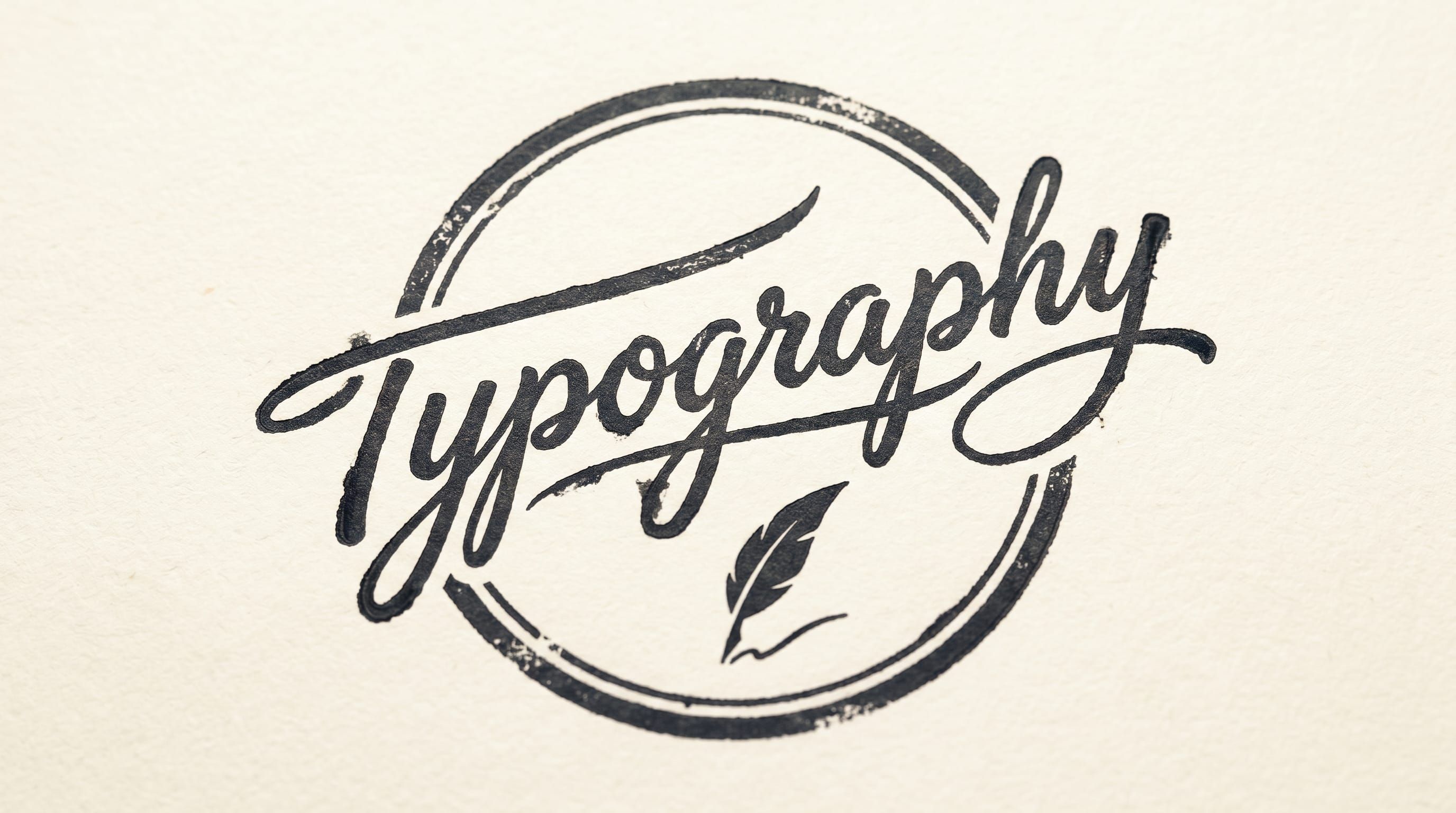
Typography Logo Trends You Should Follow for Better Results
If you want to create strong and memorable branding, understanding current typography logo trends is essential. Many designers rely on outdated styles, which can make their work feel less relevant. By following modern typography logo trends, you can create logos that feel fresh, professional, and visually impactful.
In this guide, you will explore the most effective typography logo trends, along with practical tips and font pairing ideas inspired by DM Letter Studio. These typography logo trends will help you improve your logo design results and build stronger brand identities.
Why Typography Logo Trends Matter in Branding
Staying updated with typography trends in branding helps you create designs that connect with modern audiences.
• Better brand recognition
• Strong visual identity
• Improved readability
Using the right typography trends ensures your logo remains relevant and effective.
Minimalist Typography Logo Trends for Clean Branding
Minimalism is one of the strongest typography trends in branding today.
1. Simple Letterforms
Use clean and easy-to-read fonts.
2. Balanced Spacing
Focus on layout and white space.
3. Limited Elements
Avoid unnecessary decoration.
Minimalist typography trends in branding create a timeless and professional look.
Bold Display Typography Logo Trends for Strong Impact
Bold typography is a powerful direction in logo trends.
1. Heavy Font Weights
Create strong visual presence.
2. Large Scale Text
Make the logo stand out.
3. High Contrast Layout
Enhance readability and impact.
These typography trends in branding are perfect for brands that want attention.
Handwritten and Script Typography Logo Trends
Personal and expressive styles are growing in typography trends.
1. Signature Style Fonts
Add a premium and personal feel.
2. Handwritten Textures
Create authenticity.
3. Flowing Letterforms
Enhance emotional connection.
These typography trends in branding work well for lifestyle and creative brands.
Retro and Vintage Typography Logo Trends
Vintage aesthetics are returning in typography trends.
1. Classic Serif Fonts
Create timeless branding.
2. Muted Color Combinations
Enhance nostalgic feel.
3. Textured Effects
Add depth and character.
Retro-inspired typography trends in branding give brands a unique personality.
Experimental Typography Logo Trends for Creative Brands
Creative exploration is shaping new typography trends.
1. Distorted Text
Break traditional rules.
2. Custom Letterforms
Create unique identities.
3. Mixed Styles
Combine different font styles.
These typography trends in branding push creative boundaries.
Font Pairing Ideas Based on Typography Logo Trends
Choosing the right pairing improves your typography trends in branding execution. Here are DM Letter Studio-inspired combinations:
1. Script + Clean Sans (Elegant and Modern)
Primary Font: Bambang Signature style
Secondary Font: Modern geometric sans like Stryvix
Effect:
Creates a premium and refined logo style while staying clean and readable.
Best for:
• Personal brands
• Fashion and beauty
• Creative businesses
2. Playful Display + Simple Sans (Fun and Energetic)
Primary Font: Blunt Bubble / Doughsy style
Secondary Font: Neutral sans serif like Melvick
Effect:
Gives a friendly and engaging look that stands out easily.
Best for:
• Youth brands
• Social media branding
• Food and lifestyle content
3. Serif + Minimal Sans (Professional and Clean)
Primary Font: Elegant serif like Herbalique Monogram
Secondary Font: Thin sans serif like ROSA
Effect:
Creates a balanced and timeless brand identity.
Best for:
• Corporate brands
• Editorial designs
• Premium products
4. Handwritten + Neutral Sans (Authentic and Warm)
Primary Font: Daily Hand / Tinklin style
Secondary Font: Clean sans serif like Honeyquill
Effect:
Adds a human and approachable feel to your logo.
Best for:
• Lifestyle brands
• Handmade products
• Personal branding
5. Bold Display + Thin Sans (High Contrast Look)
Primary Font: Bold headline font like Meltipop Retro
Secondary Font: Thin sans serif like Melvick